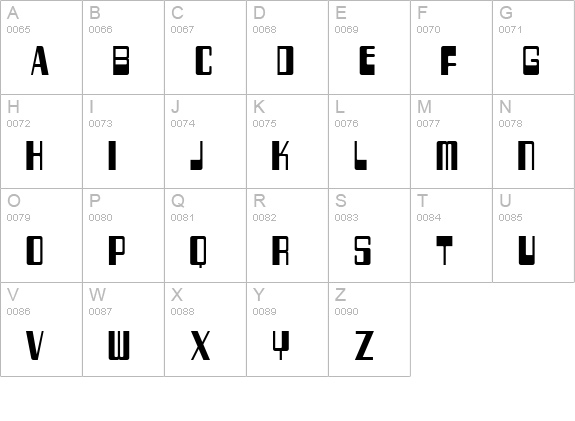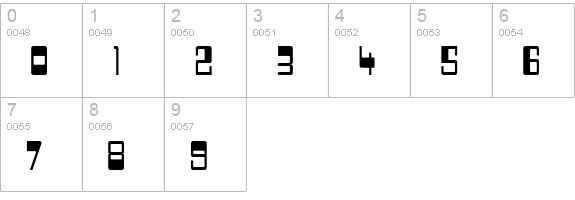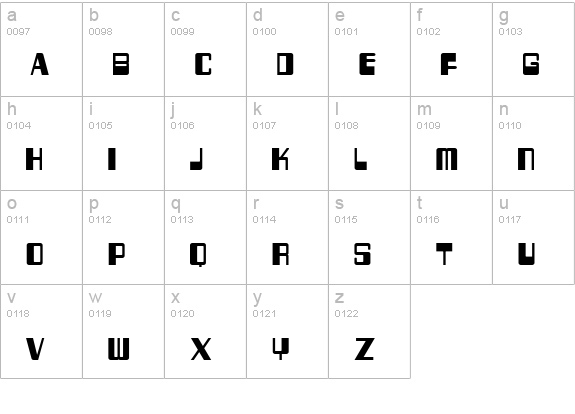
The 256 Bytes font is a sleek and modern typeface that exudes sophistication and elegance. With its clean lines and sharp angles, this font is perfect for creating a contemporary look in your designs. The versatility of 256 Bytes makes it suitable for a wide range of projects, from branding and advertising to web design and packaging. Best of all, this font is available for free download at FontsMarket.com, making it easily accessible for all your creative needs. Add a touch of style and professionalism to your work with the 256 Bytes font today!